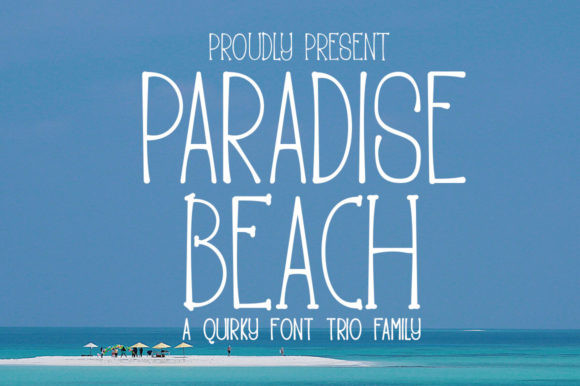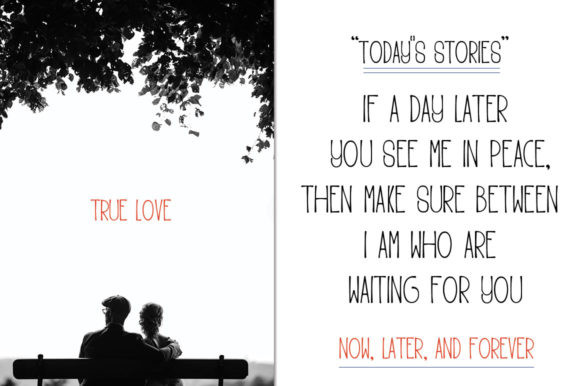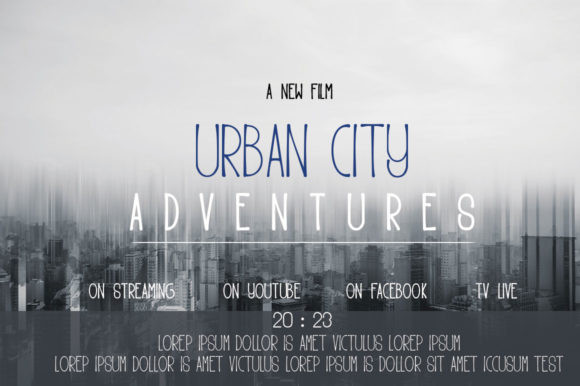
Paradise Beach Font
Paradise Beach is a minimal and neat display font. It can easily be matched to an incredibly large set of projects, so add it to your creative ideas and notice how it makes them stand out!